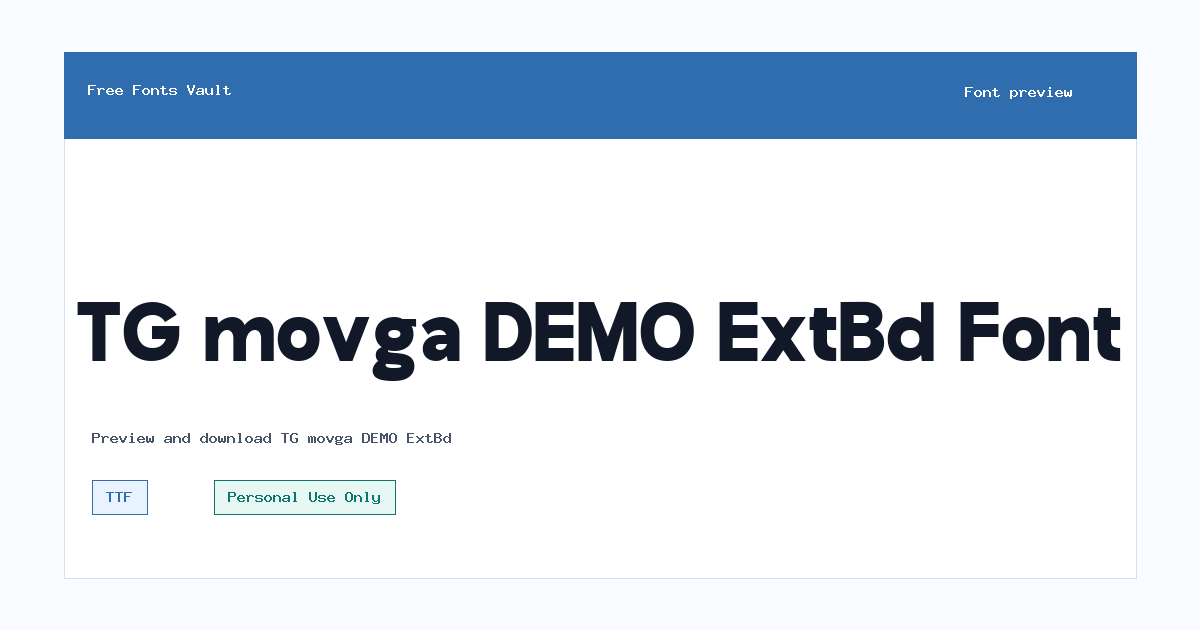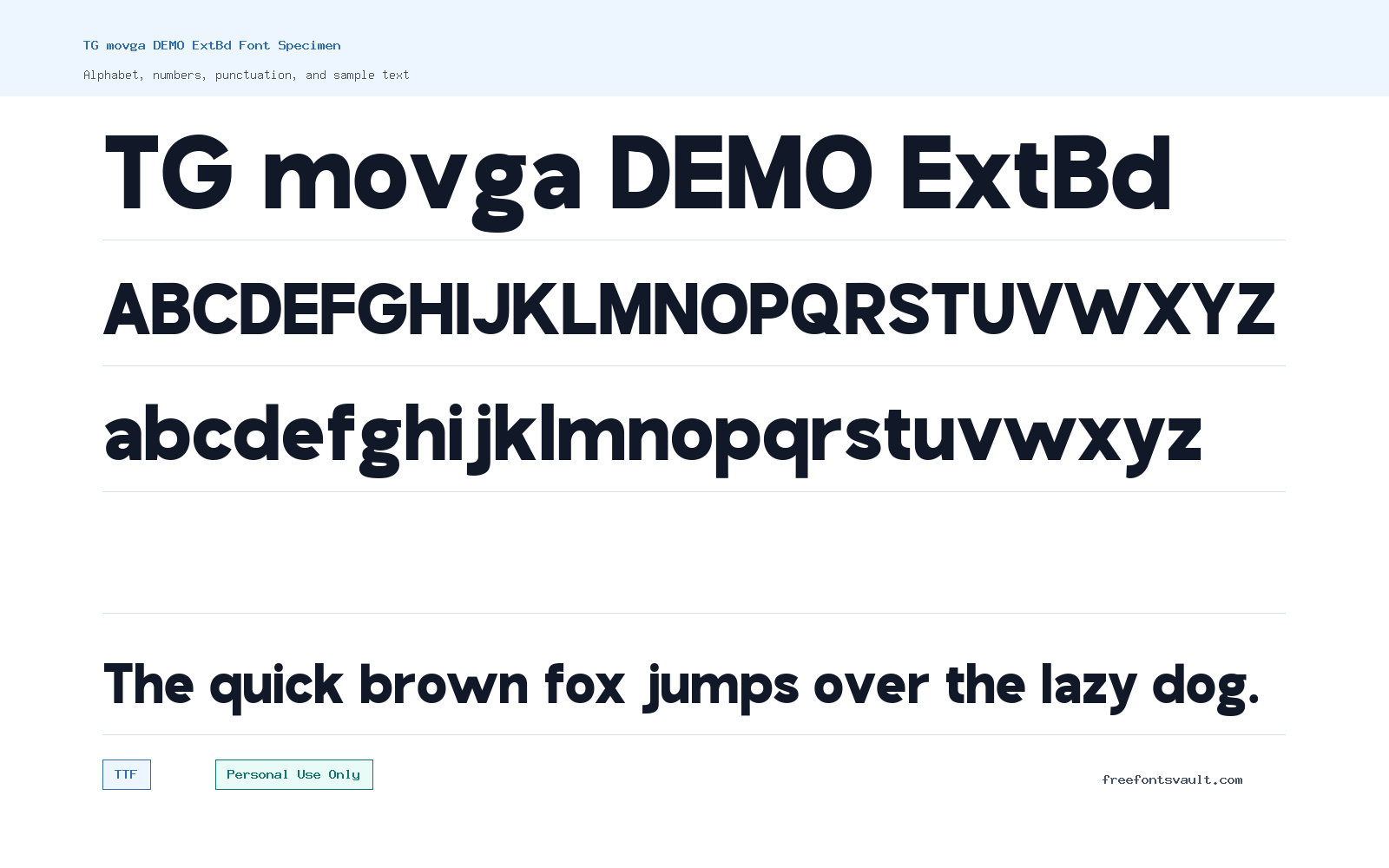
TG movga DEMO ExtBd
- Designer Mukhamad Rafly Makhbuby part of Typogrid
- Foundry Typogrid
TG movga DEMO ExtBd font.
TG movga DEMO ExtBd is a heavy demo style from the TG Movga Sans Serif family, designed for bold display work where the type needs to stand forward quickly.
About TG movga DEMO ExtBd
TG movga DEMO ExtBd uses an extra-bold sans serif structure, making it better suited to short, high-impact text than long reading paragraphs. The weight gives headlines, title cards, logo drafts, poster text, and social graphics a firm visual presence. Because this download is a demo extra-bold cut, it is best treated as a display font for testing ideas, building personal projects, or checking whether the TG Movga look fits a larger design direction. Use the preview area to test your exact words before downloading, especially if you plan to use tight spacing, all-caps settings, or very large sizes.
- Extra-bold sans serif demo style intended for strong display text and headline testing.
- Best used in short text settings where weight, spacing, and contrast can be checked visually.
- Poster titles, event graphics, and large promotional headings.
- Logo concepts, wordmark drafts, and branding mockups for personal testing.
- Website hero sections, app splash screens, and UI presentation mockups.
- Social media images, thumbnails, banners, and short quote graphics.
- Packaging studies and editorial cover concepts where bold type is the main visual element.
TG movga DEMO ExtBd is credited to Mukhamad Rafly Makhbuby, part of Typogrid, with Typogrid listed as the foundry.
What kind of font is TG movga DEMO ExtBd?
It is an extra-bold sans serif demo font. Its heavy weight makes it more useful for display text, headlines, logo drafts, posters, and mockups than for long paragraphs.
What should I pair with this font?
Pair the extra-bold display style with a clean, lighter sans serif for paragraphs, captions, navigation, or supporting copy. Keeping the secondary font simple helps the bold title remain the focus.
Is this font good for body text?
It is not the best choice for long reading. The extra-bold weight works better in short text, large sizes, and places where impact matters more than paragraph comfort.